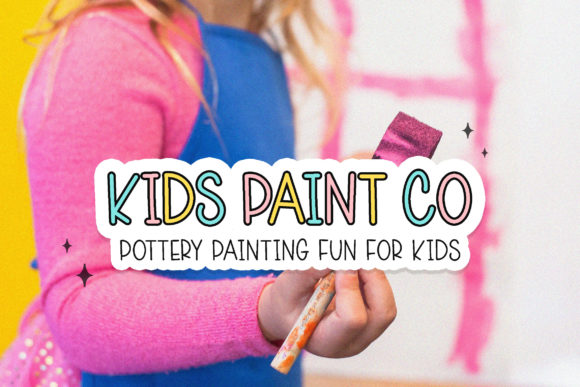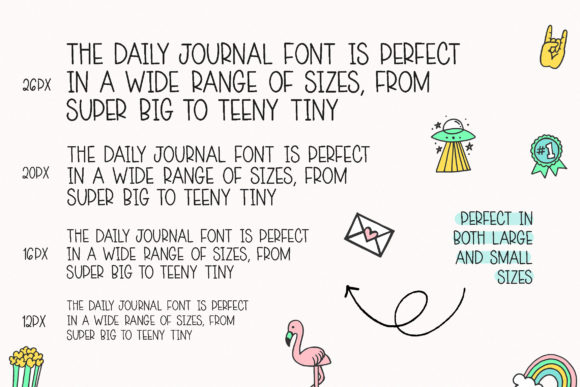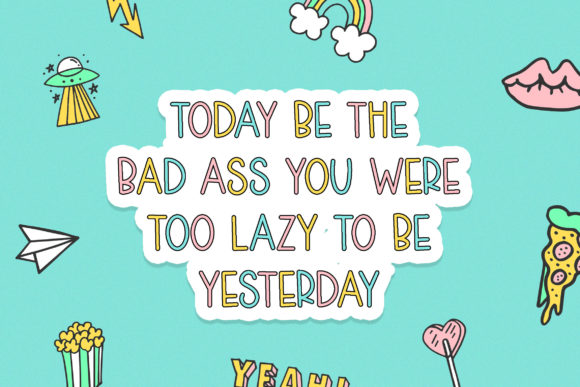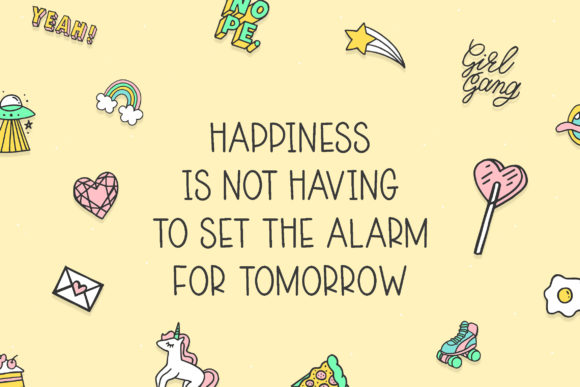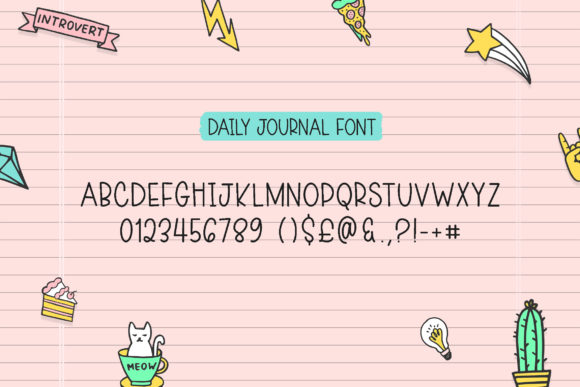
Daily Journal Font
About Daily Journal Font
Daily JournalĀ is a cute and simple lettered handwritten font that can be used for all chalkboard quotes or teaching material! Its authentic look will add a personal and realistic feel to your designs.